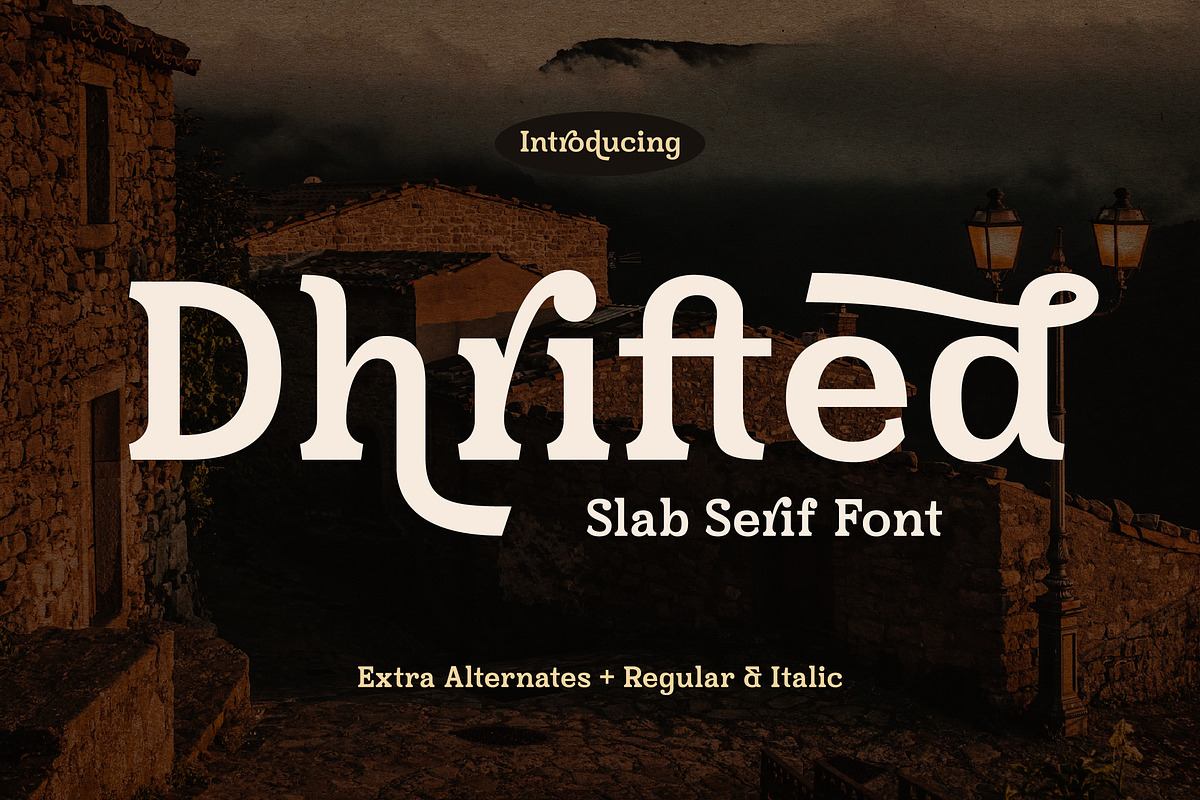
Dhrifted Slab Serif Font Free Download
Dhrifted Slab Serif Font Free Download is a rugged and reliable typeface that combines classic slab serif structure with a modern, edgy twist. Please note, you are required to purchase this font for commercial use. It is available for free download for testing and personal projects only.
With its strong serifs, bold lines, and versatile style, Dhrifted is perfect for headlines, branding, editorial design, signage, and merchandise that demands attention. It brings a sense of confidence and durability to your typography while maintaining clean readability.